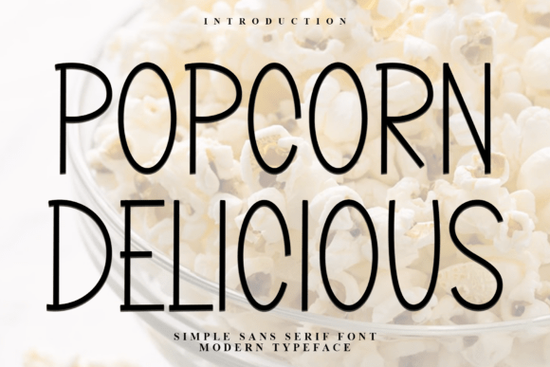
Finding the right typography can take time. You want something that catches attention without overwhelming the message. That is exactly why Popcorn Delicious Font stands out among the many options available today. It offers a soft, unique touch through its distinctive strokes, giving your text special character. Whether you are making custom labels, planning a birthday party invitation, or selling digital downloads, this tool helps you communicate your idea clearly while adding a creative flair.
This typeface belongs to the display category, which means it is designed to catch the eye rather than fill long paragraphs of text. Crafters often use it for stickers and vinyl decals because the rounded edges cut cleanly on machines like the Cricut or Silhouette. Since it is compatible with various applications, including Windows and open-source platforms, it fits easily into your existing workflow without needing extra conversion tools.
Small business owners frequently utilize this style for branding elements. Imagine a bakery logo or a cute coffee shop sign. The legible shapes make the text readable even at smaller sizes, but the style remains friendly and approachable. It works well for children’s books, educational materials, and casual social media graphics. When paired with clean, simple imagery, the letters act as a focal point that draws viewers in immediately.
To maximize utility, consider mixing weights. Many modern font sets come in variations like light, regular, and bold versions. Try overlaying white text over a dark background image for high contrast. Alternatively, use a textured backdrop behind the letters to give the design depth and texture. Because it is a distinct style, pair it with neutral colors to let the typography shine. Avoid using too many decorative elements nearby, as that can distract from the message.